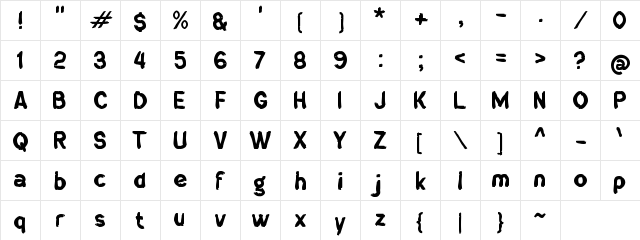
f Fantastic Rock Regular
Designer: Wahyu Eka Prasetya
Design Context for f Fantastic Rock
f Fantastic Rock is a composed and adaptable typeface that performs quietly and consistently across a wide range of design contexts.
Pro Tip: Use f Fantastic Rock in both headline and body roles to test its range before committing to a single application.